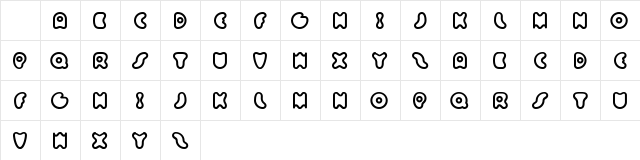
Complete Sixty Queens glyph index. Displaying only characters natively supported by Sixty Queens font.
Sixty Queens is a composed and adaptable typeface that performs quietly and consistently across a wide range of design contexts.